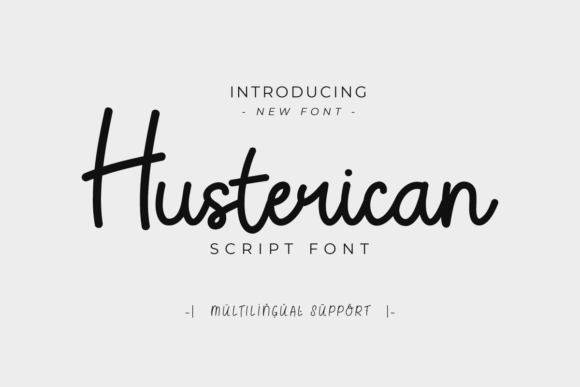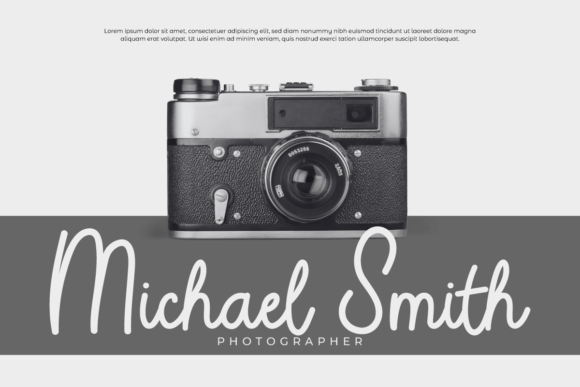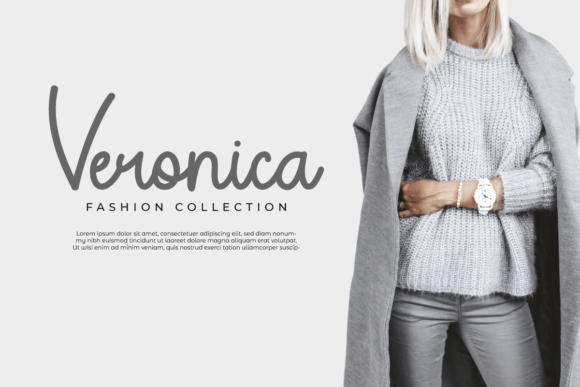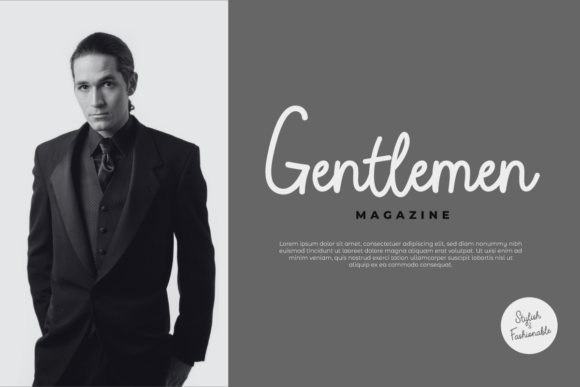
Husterican Font: Elegant Script for Modern Logo Design
About the Husterican Font
Step up your design game with Husterican Font, a font that exudes confidence and style. Husterican is the perfect blend of elegance and boldness in monoline typography. With each precise curve and elegant design, this font offers a classy and modern impression. Husterican is suitable for a variety of projects, from logo design to promotional materials. Each letter creates a powerful and impressive atmosphere, ensuring that your design exudes undeniable elegance and professionalism. With Husterican, every detail becomes an alluring and stunning work of art.
Husterican’s strong, monoline structure makes it ideal for headlines, logos, and short impactful text in branding materials or posters. Its elegance shines in packaging design, particularly for luxury or high-end products. However, its bold strokes and lack of x-height variation make it less suitable for body text or extended reading; readability suffers in smaller sizes or within UI contexts.
Pairing Husterican effectively requires considering its refined boldness. A clean sans-serif like Montserrat or a geometric sans-serif such as Futura would provide a contemporary contrast. For a more traditional feel, a classic serif such as Garamond or a subtle script like Playfair Display could add an elegant touch, softening the Husterican’s strong lines.
The font projects a sophisticated, modern, and assertive personality. Brands aiming for a sense of luxury, confidence, and refined power would find Husterican particularly fitting.
Husterican Font Example